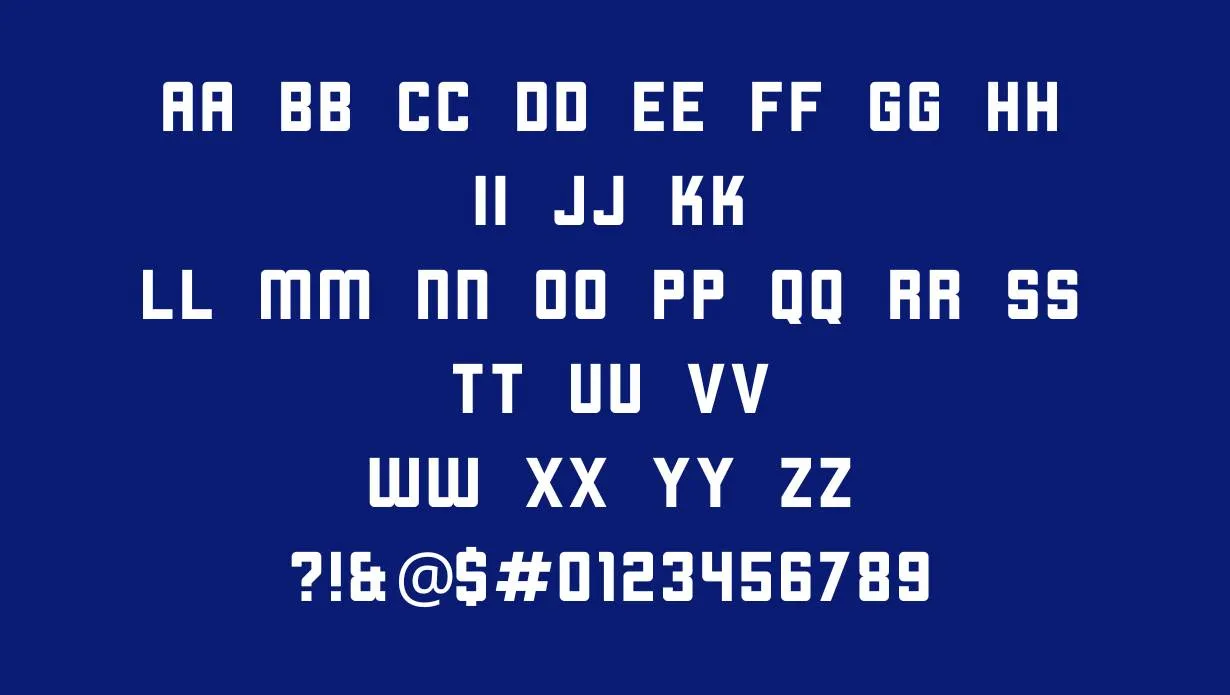
Cornerstone Font is a versatile and legible typeface suitable for various design applications. Its clean lines and modern design make it a practical choice for branding, advertising, web design, and packaging.
This font provides a contemporary and well-organized aesthetic to your design projects. Utilize the altair font, which shares the same style and characters as the font in question, providing you with a seamless alternative.
| Name | Cornerstone Font |
| Designer | Zac Freeland |